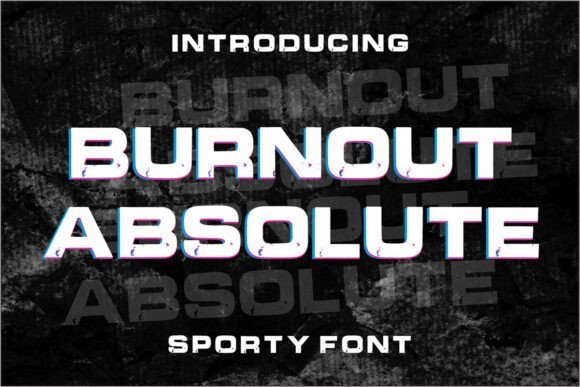
The Perfect Blend of Speed and Style: Unlocking the Power of Burnout Absolute Font
Imagine yourself in the middle of a design project, surrounded by endless possibilities and a deadline looming in the background. You need a font that can keep up with your creative energy, something that exudes speed and style without sacrificing readability. This is where Burnout Absolute Font comes in – a display font designed to capture the essence of the sport and racing world, perfect for projects that demand a casual yet dynamic feel.
As a designer, you’re constantly on the lookout for the right tool to bring your vision to life. Burnout Absolute Font is more than just a font – it’s a versatile companion that can elevate your designs, from sports-themed graphics to high-energy promotional materials. Its easy-to-read character and sporty vibe make it an invaluable asset for any project, allowing you to focus on what matters most – creativity and innovation.
Burnout Absolute Font Key Features
- Font Size: 2,000 glyphs, including Latin, Greek, Cyrillic, and other languages
- Unique Characteristics: Distressed, worn, and weathered effects, giving it a vintage and industrial look
- Font Style: Sans-serif, with a bold and edgy feel
Burnout Absolute Font Review
Overall, I’d say Burnout Absolute Font is a decent choice for designers who need a font with a unique, distressed feel. ✨ The font’s distressed aesthetic is quite convincing, making it perfect for creating a sense of wear and tear or a retro vibe.
- ✨ Distressed aesthetic is well-executed and can add a lot of character to designs.
- ✨ Wide range of language support, making it a great choice for international projects.
- ⚠️ Limited customization options, which can be a problem for designers who need to tailor the font to their specific project.
- ⚠️ Some characters may be too heavily distressed, making them difficult to read.
- ⚠️ Font weight and style options are limited, which can limit its versatility.
In conclusion, Burnout Absolute Font is a solid choice for designers who need a distressed font, but it may not be the best option for those who need a high degree of customization or a wide range of font weights and styles.
Tips for Getting the Most Out of Burnout Absolute Font
Use Burnout Absolute Font for creating bold, edgy, and modern designs.
Combine the font with other bold fonts for a dramatic effect.
Use the font for titles, headings, and emphasis to add visual interest to your designs.
Use Burnout Absolute Font for:
Graphic design projects, such as posters, flyers, and brochures.
Branding and logo design.
Typography-based art and design projects.